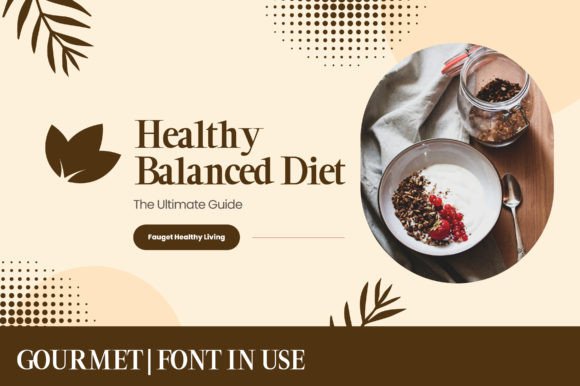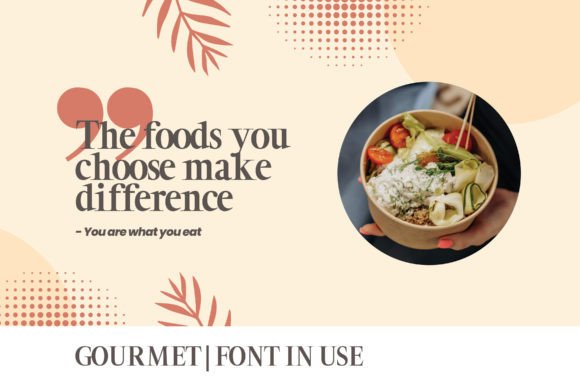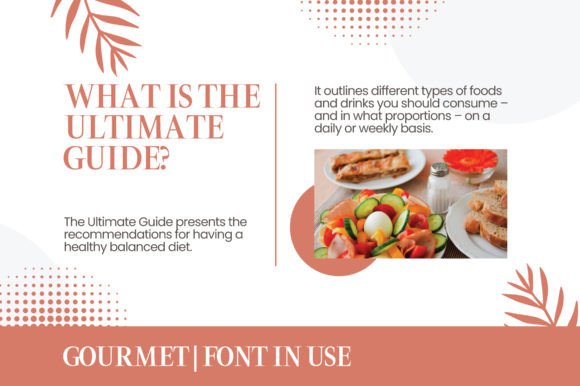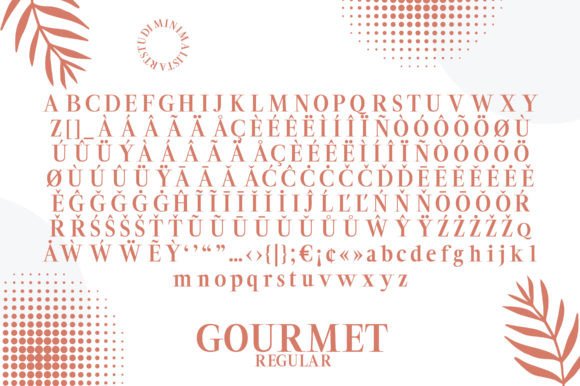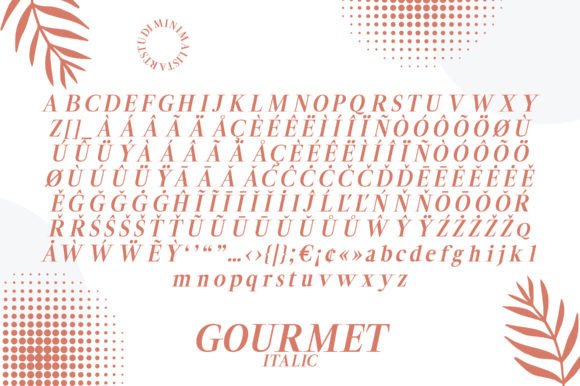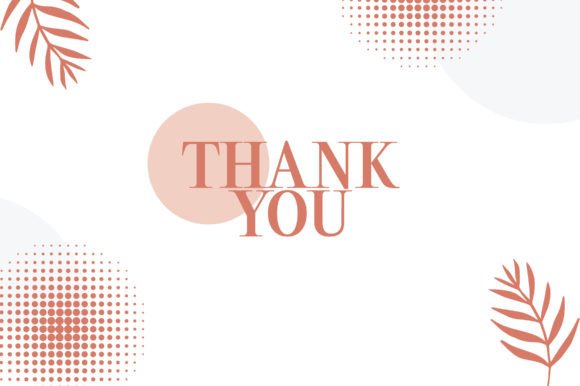
Gourmet Font: Elevate Your Designs with Elegance and Sophistication
In the world of typography, few fonts manage to convey the essence of luxury and refinement as effectively as Gourmet Font. This classic, delicate, and elegant serif typeface has been a favorite among designers for its simple yet sophisticated aesthetic, making it an ideal choice for a wide range of applications, from packaging design and restaurant menus to invitations, banners, and social media posts.
The Characteristics of Gourmet Font
Gourmet Font is distinguished by its perfectly curved construction and simple aspect, which together render it a valid choice for designers looking to infuse their projects with a sense of elegance and luxury. The font’s serif characteristics add a touch of classic sophistication, making it versatile enough to be used in both traditional and modern designs.
Applications of Gourmet Font
The versatility of Gourmet Font is one of its most compelling attributes. Here are some of the key areas where this font truly shines:
- Packaging Design: For brands looking to convey a sense of premium quality, Gourmet Font can be used to create labels, packaging, and branding materials that exude sophistication.
- Restaurant Menus: The elegance of Gourmet Font makes it perfect for restaurant menus, wine lists, and event invitations, helping to create a refined dining experience.
- Invitations: Whether it’s a wedding invitation, a birthday party invite, or any other special occasion, Gourmet Font adds a touch of class and sophistication.
- Banners and Social Posts: For businesses and individuals looking to stand out on social media or create eye-catching banners, Gourmet Font can be used to craft visually appealing text that draws the eye.
Why Choose Gourmet Font?
There are several reasons why Gourmet Font has become a go-to choice for designers and crafters:
- Timeless Appeal: Unlike trends that come and go, Gourmet Font’s classic design ensures it remains relevant and stylish for years to come.
- Versatility: Its adaptability across various mediums and applications makes it a valuable addition to any designer’s toolkit.
- Ease of Use: Gourmet Font is easy to read and works well in both digital and print formats, making it a practical choice for a wide range of projects.
- Emotional Connection: The font’s elegant and refined appearance can evoke a sense of luxury, sophistication, and even nostalgia, helping designers to connect with their audience on a deeper level.
Tips for Using Gourmet Font Effectively
To make the most of Gourmet Font, consider the following tips:
- Pair it with Simplicity: Let Gourmet Font be the focal point of your design. Pair it with simple backgrounds or graphics to ensure it stands out.
- Experiment with Sizes: Don’t be afraid to play with different font sizes to create visual hierarchy and emphasis in your designs.
- Consider Color Choices: Gourmet Font looks stunning in metallic colors, rich blacks, or elegant pastels. Choose a color that complements the mood of your design.
- Mix with Other Fonts: For added creativity, try pairing Gourmet Font with sans-serif fonts for contrast, but ensure they complement rather than clash.
Gourmet Font is more than just a typeface; it’s a design element that can elevate your projects to new heights of elegance and sophistication. Its timeless appeal, versatility, and emotional resonance make it an invaluable asset for designers and crafters looking to create luxurious themes. Whether you’re designing packaging, menus, invitations, or social media content, Gourmet Font holds within it the power to transform your creative ideas into stunning realities.
So, embrace the elegance of Gourmet Font and discover the impact it can have on your designs. With its classic charm and modern versatility, it’s the perfect choice for anyone looking to add a touch of sophistication to their work.